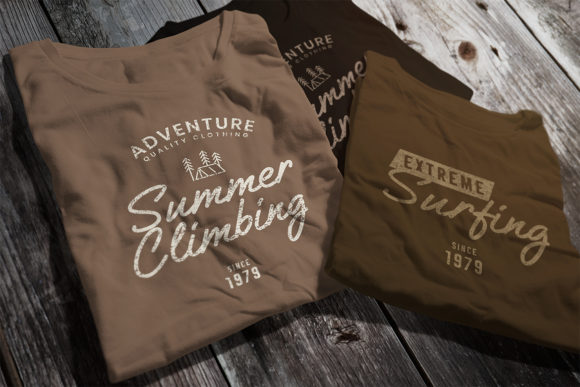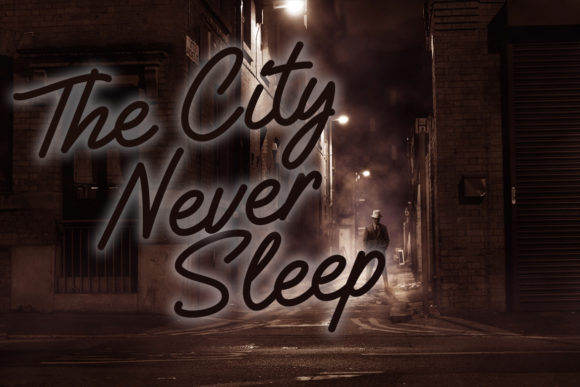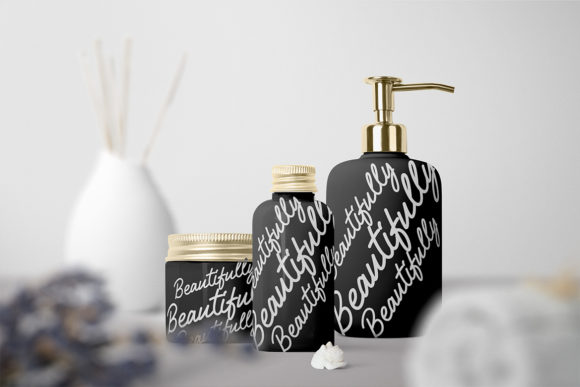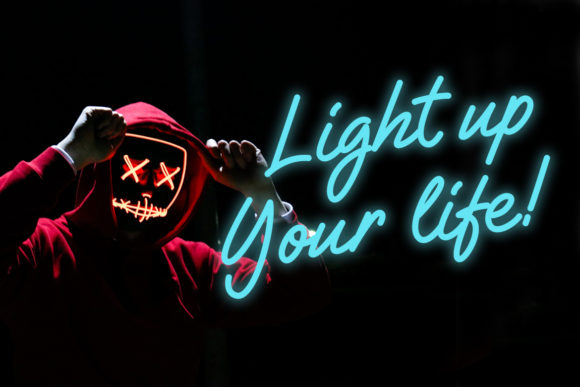
Introducing the Gilligan Shutter Font: Elevate Your Designs with a Sophisticated Monoline Signature
In the world of design, fonts play a crucial role in conveying the message and aesthetic of a project. For designers and crafters looking to add a touch of sophistication and elegance to their work, the Gilligan Shutter Font is an excellent choice. This monoline signature font boasts a bold style that brings a natural feel to any design, making it perfect for a wide range of applications.
What is the Gilligan Shutter Font?
The Gilligan Shutter Font is a carefully crafted monoline signature font that features a bold and fluid design. Its monoline characteristic means that the font is created with a single line, giving it a sleek and modern look. This font is designed to add a touch of personality to your designs while maintaining a level of sophistication that is hard to achieve with more traditional fonts.
Key Features of the Gilligan Shutter Font
- Sophisticated Monoline Design: The font’s monoline design gives it a modern and sleek appearance, perfect for designs that require a contemporary touch.
- Bold Style: The bold style of the Gilligan Shutter Font ensures that your text stands out, adding emphasis and importance to your message.
- Natural Feel: Despite its boldness, the font has a natural feel that makes it suitable for a variety of design projects, from branding to personal invitations.
- Versatility: This font is incredibly versatile, making it suitable for a wide range of design projects.
Use Cases for the Gilligan Shutter Font
The versatility of the Gilligan Shutter Font makes it an excellent choice for numerous design projects. Here are some of the ways you can use this font to elevate your designs:
- Branding Projects: Create a lasting impression with your brand’s logo or marketing materials using the Gilligan Shutter Font.
- Logos: The bold and sophisticated design of the font makes it perfect for logos that need to stand out.
- Wedding Designs: Add a touch of elegance to your wedding invitations, programs, or decorations.
- Social Media Posts: Make your social media posts stand out with a font that is both modern and eye-catching.
- Advertisements: Use the Gilligan Shutter Font to create compelling advertisements that grab attention.
- Product Packaging: Elevate your product packaging with a font that conveys sophistication and quality.
- Product Designs: Incorporate the Gilligan Shutter Font into your product designs for a modern look.
- Labels: Create labels that stand out with a bold and elegant font.
- Photography: Use the font for watermarks or to add text to your photographs.
- Invitations: Perfect for formal or informal invitations, the Gilligan Shutter Font adds a touch of class.
- Stationery: Elevate your stationery with a sophisticated font that makes a statement.
Why Choose the Gilligan Shutter Font?
Choosing the right font for your design project can be overwhelming, given the numerous options available. However, the Gilligan Shutter Font stands out for several reasons:
- Unique Design: The monoline signature design of the font is unique and adds a personal touch to your designs.
- Readability: Despite its bold style, the font maintains a high level of readability, ensuring that your message is conveyed clearly.
- Adaptability: The font’s versatility means it can be used across various design projects, making it a valuable addition to your font library.
The Gilligan Shutter Font is a powerful tool for designers and crafters looking to add a touch of sophistication and elegance to their work. Its bold, monoline signature design makes it perfect for a wide range of design projects, from branding and logos to wedding designs and product packaging. With its natural feel, versatility, and unique design, the Gilligan Shutter Font is an excellent choice for anyone looking to elevate their designs.
Whether you’re a professional designer or a crafter, incorporating the Gilligan Shutter Font into your projects can help you achieve a modern and sophisticated look that stands out. So, why settle for ordinary fonts when you can make a statement with the Gilligan Shutter Font?